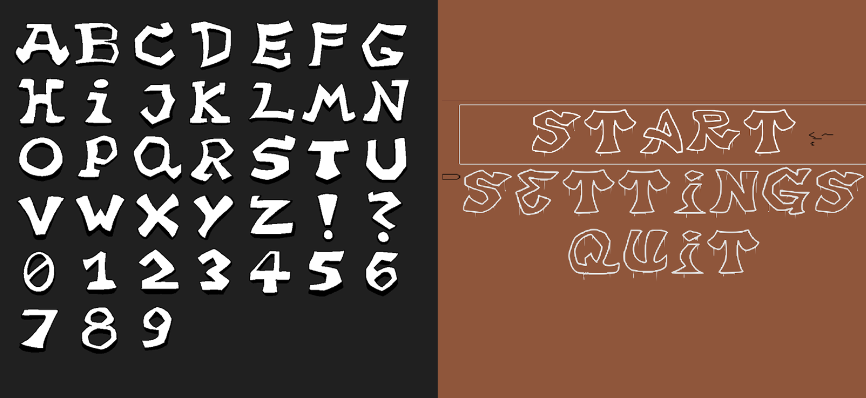
Hi, I having problems with the fonts, I want to load a ttf font that was white letters with a black outline but it shows me white outline font without color inside. How do you set properly the font so it’s doesn’t break?
How it shoud look / how it shows
Most if not all text handling nodes make their own outline, it shouldn’t be baked into the font.
Can Godot handle (say) Noto Color Emoji? There are full color fonts out there that seem like they’d clash with the signed distance field stuff that Godot’s font rendering is doing.
The emoji font works, and I suppose any other font out there, but I wish to know if you can create your own without it breaks.
I think the specs for color fonts are still stabilizing, and there are IIRC several ways they can be specified. It may be that Godot only supports one (or some incomplete subset) of those specs that fonts like Noto Color Emoji conform to. That page has:
This font uses the COLRv1, CPAL and SVG tables.
And then a link to a “how color fonts work” page that might help.